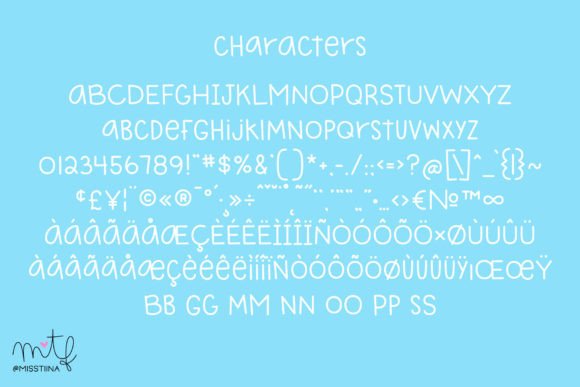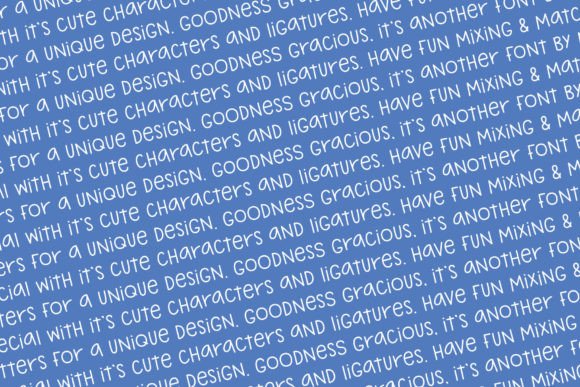
Introducing Goodness Gracious Font: Adding a Personal Touch to Your Designs
Are you tired of using the same old fonts in your designs? Do you want to add a personal touch that sets your work apart from the rest? Look no further than the Goodness Gracious Font, an attractive handwritten font that has a natural, calligraphic look. With its bouncy, playful feel, this font is sure to bring a smile to your audience and make your designs shine.
The Characteristics of Goodness Gracious Font
Goodness Gracious Font is a unique and charming font that boasts a range of characteristics that make it perfect for adding a personal touch to your designs. Some of its key features include:
- Natural, calligraphic look: Goodness Gracious Font has a beautiful, organic feel that mimics the look of handwriting. Its natural, flowing lines give it a sense of elegance and sophistication.
- Bouncy, playful feel: This font has a lively, energetic feel that’s sure to bring a smile to your audience. Its bouncy lines and playful curves make it perfect for designs that need a bit of personality.
- Handwritten style: Goodness Gracious Font is a true handwritten font, crafted with love and care to give it a genuine, personal feel.
Why Use Goodness Gracious Font?
So why should you choose Goodness Gracious Font for your designs? Here are just a few reasons why this font is a great choice:
- Adds a personal touch: Goodness Gracious Font is the perfect way to add a personal touch to your designs. Its unique, handwritten style gives your work a sense of personality and humanity.
- Versatile: This font is versatile and can be used in a range of designs, from invitations and greeting cards to branding and advertising.
- Easy to read: Despite its playful feel, Goodness Gracious Font is easy to read, making it perfect for designs that need to communicate a message.
- Use it for headings and titles: This font is perfect for headings and titles, where its playful feel can really shine.
Design Ideas Using Goodness Gracious Font
Goodness Gracious Font is a versatile font that can be used in a range of designs. Here are a few ideas to get you started:
- Invitations and greeting cards: This font is perfect for invitations and greeting cards, where its personal feel can really shine.
- Branding and advertising: Goodness Gracious Font can add a touch of personality to your branding and advertising, helping you to stand out from the crowd.
- Social media graphics: This font is great for social media graphics, where its playful feel can help to engage your audience.
In conclusion, Goodness Gracious Font is a unique and charming font that’s perfect for adding a personal touch to your designs. With its natural, calligraphic look and bouncy, playful feel, this font is sure to bring a smile to your audience and make your designs shine. Whether you’re a designer, crafter, or simply someone who loves to create, Goodness Gracious Font is a great choice for anyone looking to add a bit of personality to their work.